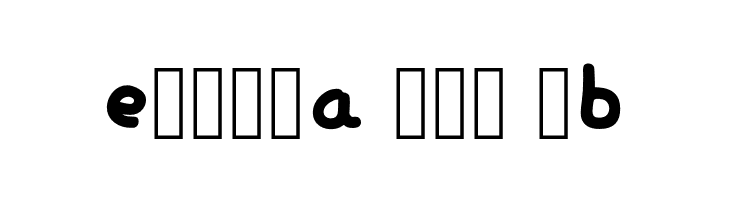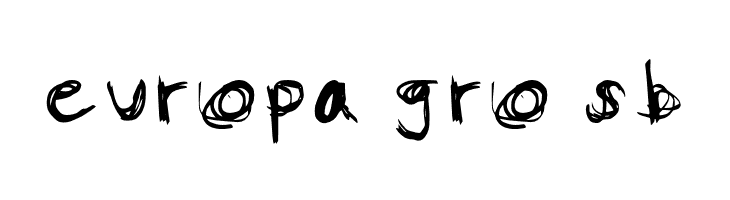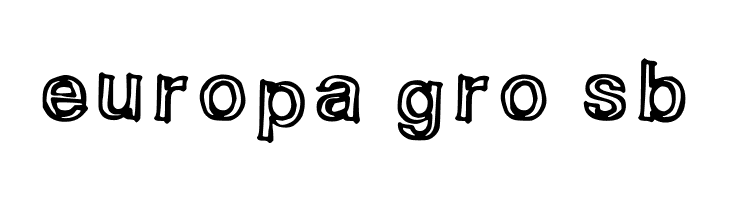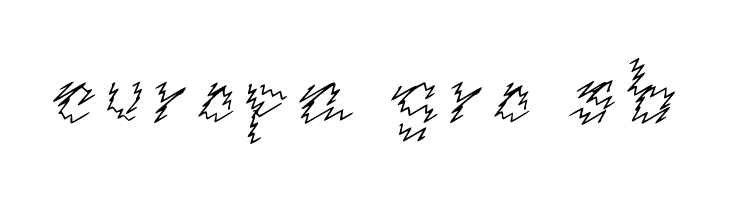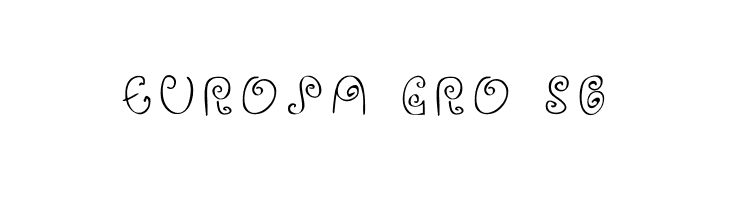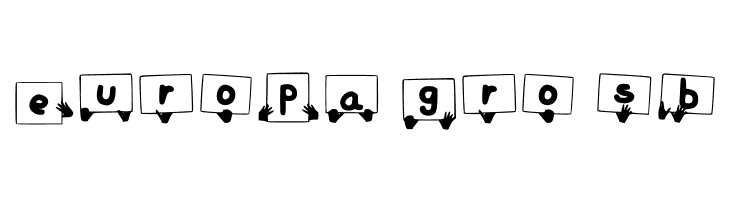
Scar-Regular Font
A raw, edgy font with a hand-drawn, chaotic style.
Wax - Regular Font
A distressed, hand-drawn font with a textured, brush-like appearance.
Block Letters _ Demo Regular Font
A bold, vintage-style font with distressed uppercase letters in block format.
DrownedWorld Font
A bold, expressive handwritten font with dynamic strokes.
BamsAnger Font
A bold, expressive font with a rough, hand-drawn style.
Skater Skank - Regular Demo Font
A playful, edgy font with a melting, graffiti-like appearance.
Play - Regular Demo Font
A playful, rounded font with smooth curves and a friendly appearance.
Magic Tape - Regular Font
A geometric, blocky font with sharp angles and bold strokes.
Play - Outlined Demo Font
A playful, bold outlined font with a whimsical and engaging style.
Wow Man Font
A bold, layered font with a three-dimensional, artistic style.
Play sign Font
A playful font with characters held by cartoonish hands and feet, perfect for fun projects.
Sloppy Comic Font
A playful, hand-drawn comic-style font with bold outlines and irregular shapes.
CutIt Regular Font
A sharp, abstract font with a cut-out, edgy design.
Ignore Me Font
A whimsical and decorative font with curly, artistic elements.
Wide Boy - Regular Font
A playful, casual handwritten font with smooth curves and a friendly appearance.
ElectroFried Font
A bold, electrified font with jagged edges and high contrast.
Fuzzy Monster Regular Font
A bold, fuzzy, and chaotic font with jagged edges, perfect for creative projects.
Bams Hand Font
A playful, casual handwritten font with smooth, flowing curves.
Bams Anger Font
A bold, expressive font with brush-like strokes and dynamic, irregular characters.
DirtyBoy Font